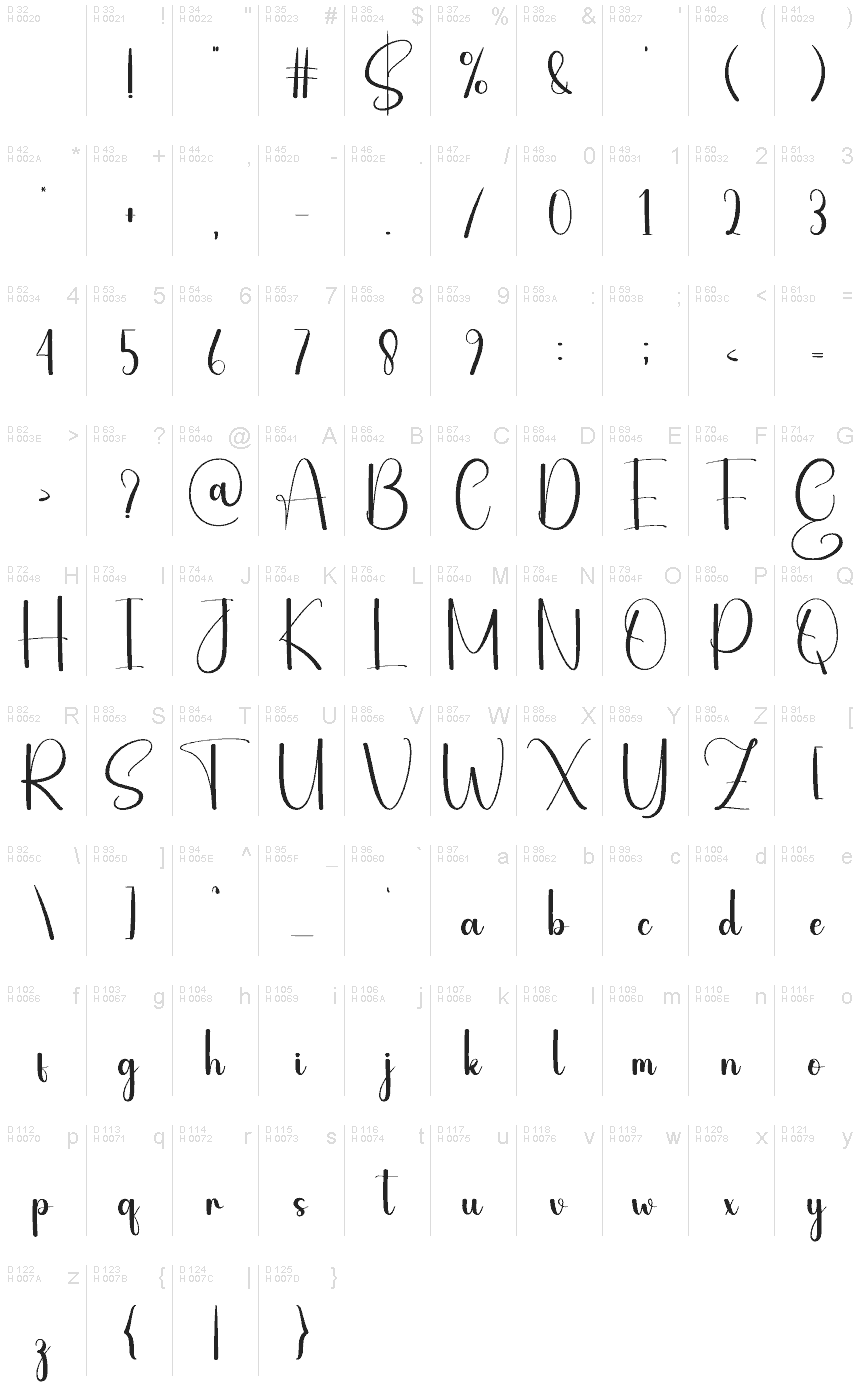
Simple Food
Simple Food font by Scratchones is a delicate handwritten font with a casual yet stylish feel. It balances modern script qualities with a subtle elegance, making it an ideal choice for projects that require a personal touch. The font’s gentle, flowing lines bring out its aesthetic charm, seamlessly fitting into diverse creative ideas.
This free handwritten font can be used in creating logo designs, branding material, invitations, stationery items, social media content or headers. It also works great on packaging design where it can elevate food and beverage aesthetics, as well as marriage or event invitations and advertisement posters.